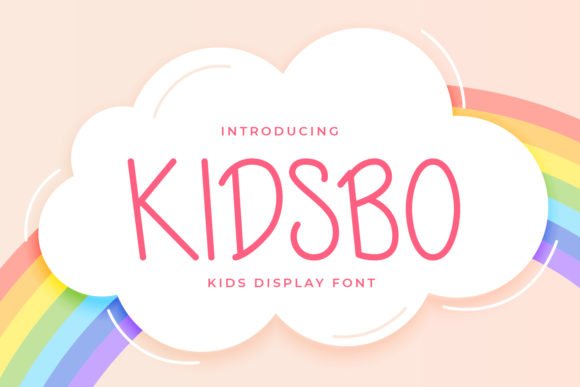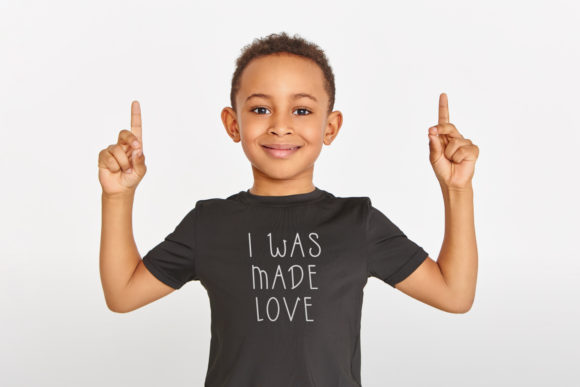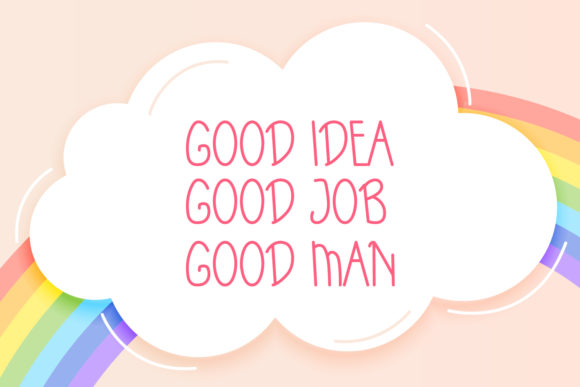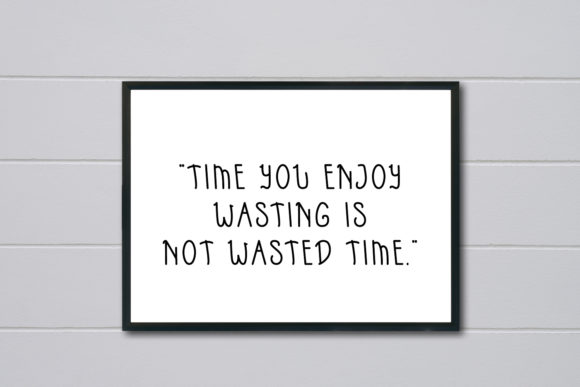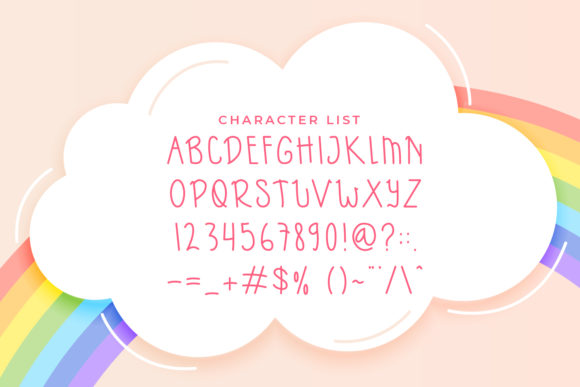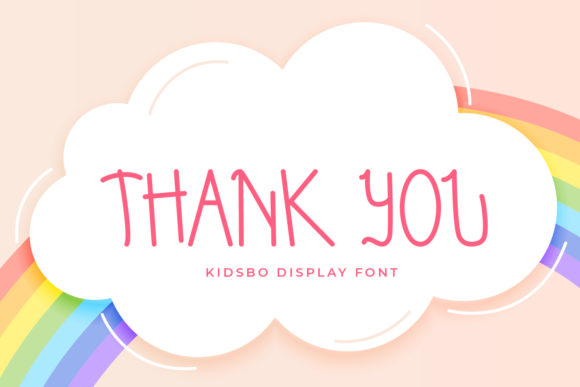
The Perfect Match for Playful Designs: Kidsbo Font
Have you ever stumbled upon a font that instantly sparks a wave of creative ideas? For me, it’s often the moment when I come across a unique font that sets the tone for an entire project. Recently, I discovered the Kidsbo Font, and I couldn’t help but feel a rush of excitement. This charming display font is designed to bring a smile to the faces of both kids and adults alike.
The Kidsbo Font is a delightful combination of fun, quirky, and neat elements, making it the perfect choice for children-themed designs. Whether you’re working on a children’s book cover, a nursery decor project, or a playful website, this font is sure to add a touch of whimsy and personality to your design. As a designer, having access to a versatile font like Kidsbo can be a game-changer, offering endless possibilities for creative expression.
- Unique Character Set: Kidsbo Font features a unique set of characters, including letters, numbers, and symbols, designed specifically for children’s educational content.
Designer Review: Kidsbo Font
When I first laid eyes on Kidsbo Font, I was immediately drawn to its playful and whimsical feel ✨. The font’s rounded edges and quirky details make it perfect for projects that require a touch of childlike wonder. I particularly love how the font’s weight and texture add depth and visual interest to text.
However, I did encounter some limitations while working with Kidsbo Font ⚠️. For one, the font’s openness can sometimes make it difficult to read, especially in smaller font sizes. Additionally, the font’s quirky nature may not be suitable for all types of projects, such as formal or professional materials.
Overall, I think Kidsbo Font is a great choice for designers who want to add a playful touch to their projects ✨. While it may not be suitable for every project, its unique charm and personality make it a great option for children’s books, educational materials, and other projects that require a youthful and energetic vibe.
Pros:
- Playful and whimsical feel ✨
- Rounded edges and quirky details
- Perfect for projects that require a touch of childlike wonder
Cons:
- Openness can make it difficult to read in smaller font sizes ⚠️
- May not be suitable for formal or professional projects
Tips for Getting the Most Out of Kidsbo Font
For the best results, use the Kidsbo Font in conjunction with colorful illustrations and graphics.
The Kidsbo Font is perfect for:
Children’s books and educational materials
Infographic design
Fun and playful websites and social media graphics
Alternatives to Kidsbo Font
Great Vibes is a modern, handwritten font that’s perfect for adding a touch of elegance and sophistication to your designs. It’s ideal for use in headings, titles, and quotes where you want to convey a sense of warmth and personality. Compared to Kidsbo Font, Great Vibes has a more refined and polished look, making it suitable for a wider range of applications.
Lobster is a fun, cursive font that’s great for creating a playful and eye-catching effect. It’s perfect for use in headings, titles, and other display text where you want to add a touch of whimsy and personality. Compared to Kidsbo Font, Lobster has a more exaggerated and dramatic feel, making it ideal for use in creative and artistic projects.